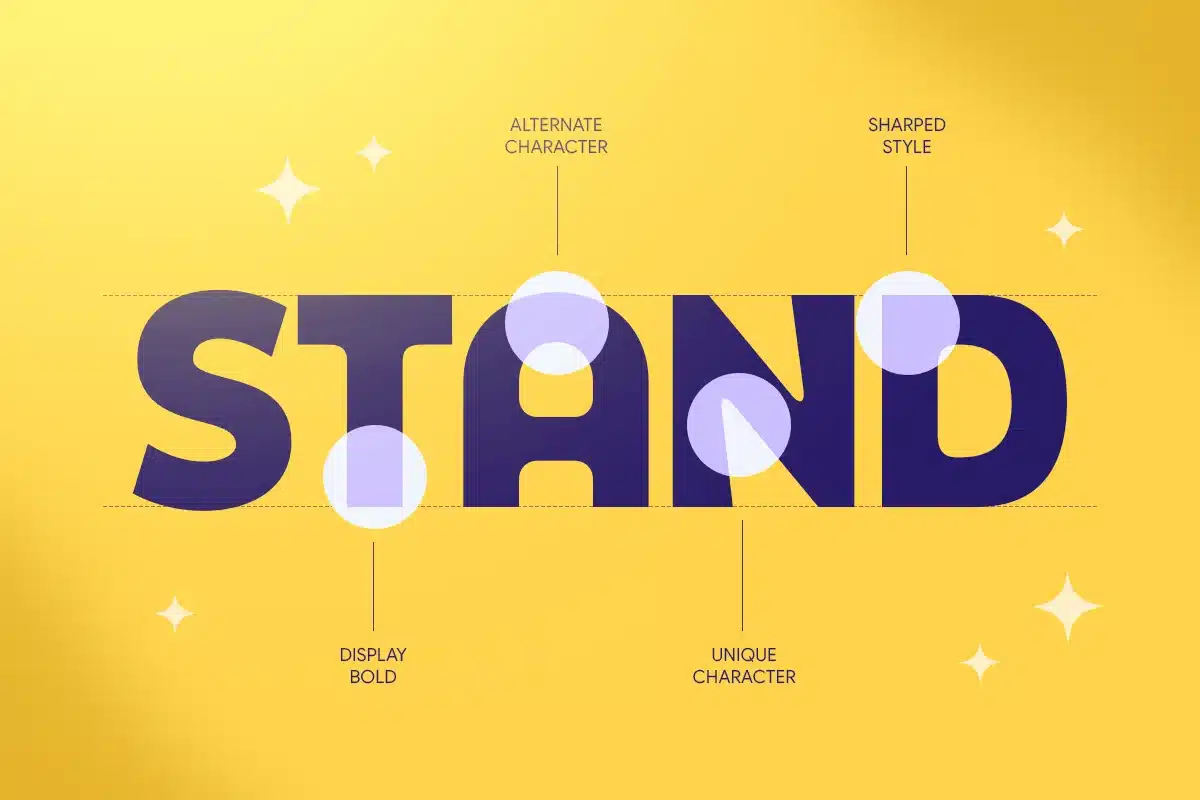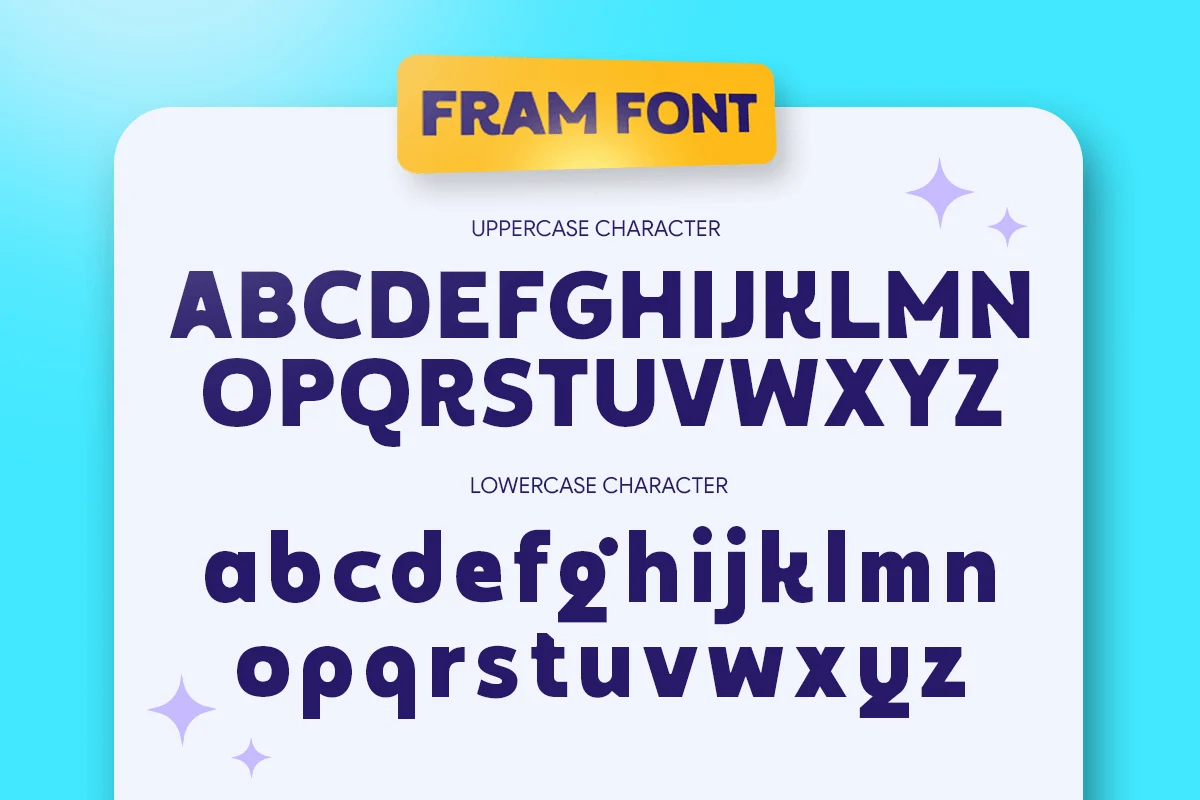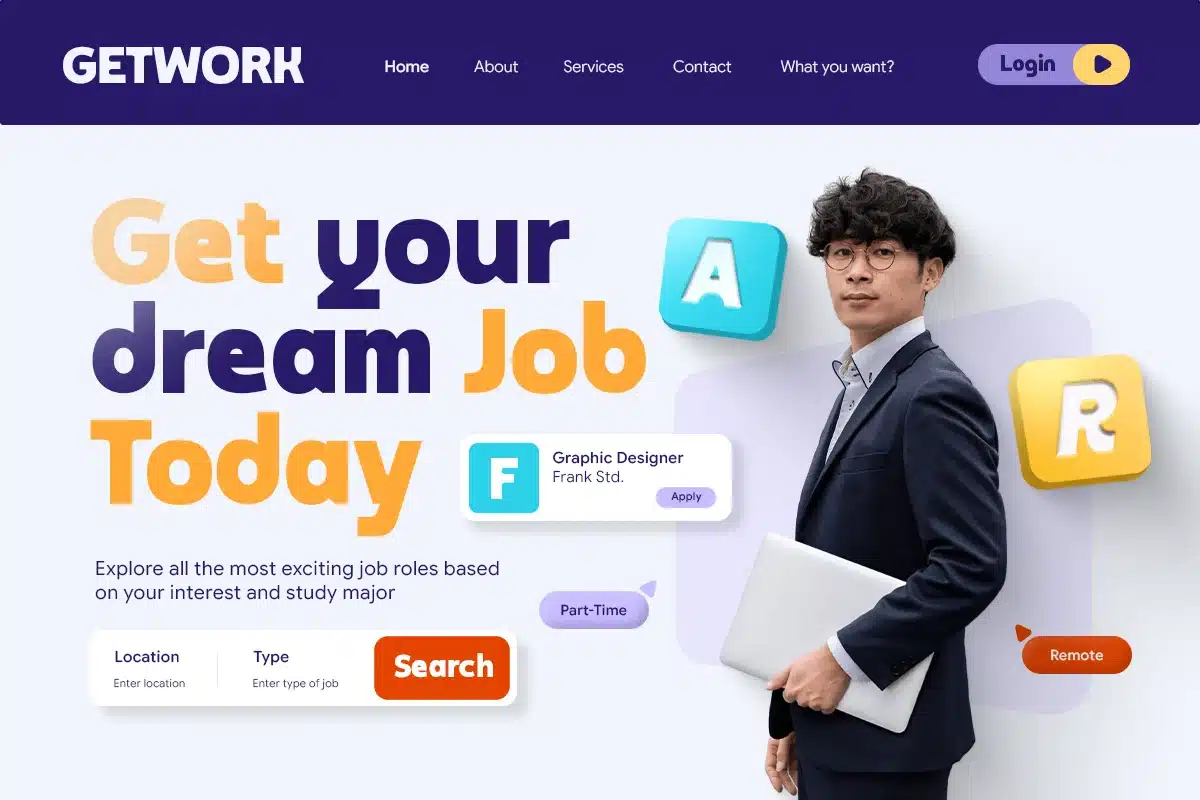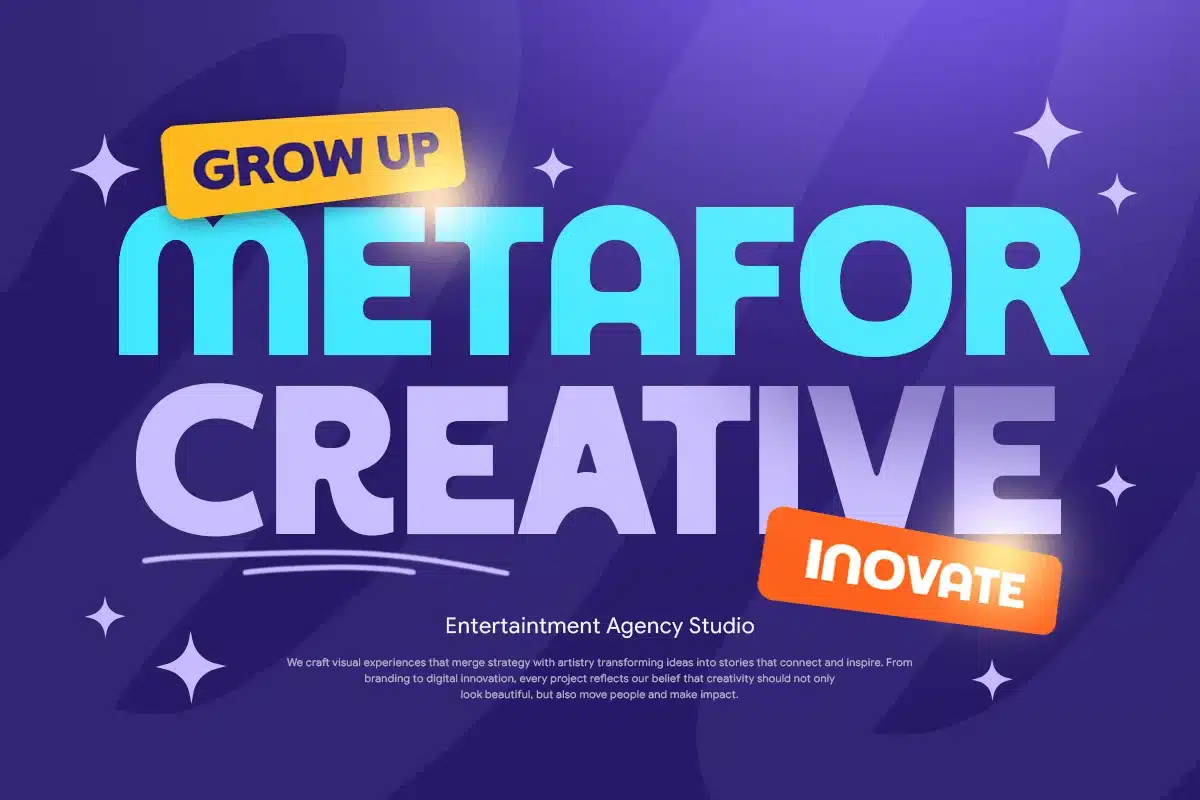
Fram – Display Logo Font
Fram is a modern display logo font designed to create bold, clean, and memorable brand identities. Featuring strong letterforms, balanced proportions, and a contemporary style, Fram is perfect for logos, branding, headlines, posters, packaging, and creative design projects.
Built for versatility and visual impact, Fram delivers excellent readability while maintaining a distinctive and stylish character. Its modern display aesthetic makes it suitable for startups, agencies, lifestyle brands, product packaging, and designers looking for a clean yet striking logo font.
Fram – Display Logo Font Features:
- Modern display style with bold visual presence
- Ideal for logos, branding, headlines, and packaging
- Clean structure with balanced proportions
- Perfect for modern, creative, and professional design projects
Create a standout brand identity with Fram – the display logo font crafted for bold and modern visuals.